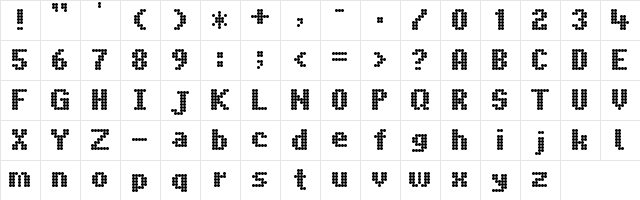
Trapwagen Klein Regular
| Designer | Jeffrey Visser |
| Copyright | Copyright Jeffrey Visser 2010 Trapwagen Klein is based on Binnen display 5 by Jeffrey Visser http://fontstruct.fontshop.com/fontstructors/jffry101), which is based on Bus Signboard Regular by myk85 http://fontstruct.fontshop.com/fontstructors/ |
Design Context for Trapwagen Klein Typeface
Trapwagen Klein takes a measured approach to typography — its balanced proportions and neutral character make it a reliable workhorse for both digital and print work.